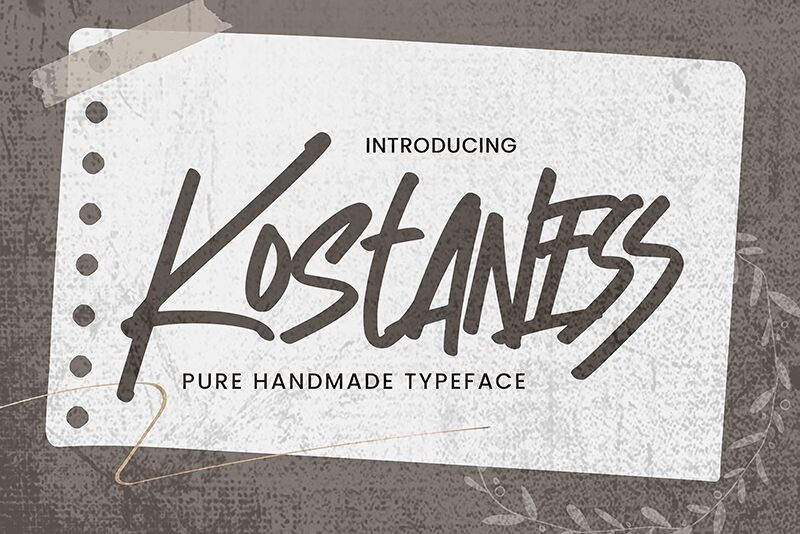
Kostaness
Kostaness emerges as a pure handmade typeface crafted by the artistry of Gassstype, bringing a modern twist to traditional handwriting. Its semi-light weight and semi-condensed width exude an airy elegance, while the dramatic movement within each stroke captures the essence of swift, casual penmanship. This font's textured appearance and cool characteristics infuse your creative projects with an authentic and playful spirit.
Perfectly suited for an array of applications, Kostaness shines in labels, quotes, posters, and any design seeking a modern yet personal touch. Beyond mere aesthetics, this typeface is functional-its Ligatures and Alternates glyphs are easily activated in the OpenType panel to enhance your work with unique flair. Let Kostaness transform your branding, packaging, greeting cards, websites, photography overlays-and much more-into works that resonate with individuality and contemporary charm.